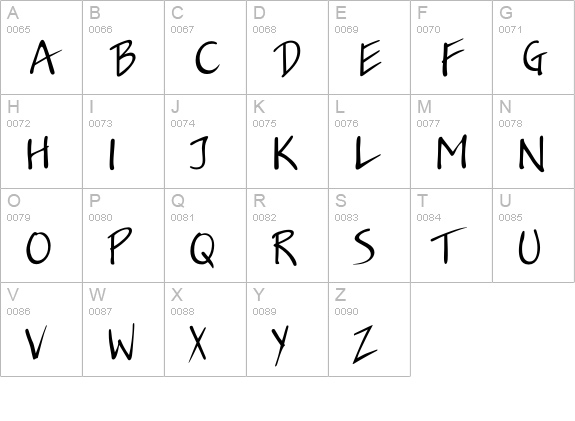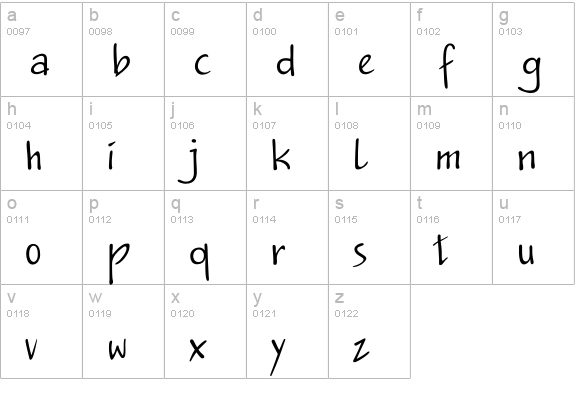
PT Jakob Light Cyrillic Font Details
PT Jakob Light Cyrillic is a refined, elegant variant in the PT typeface family \xE2\x80\x94 well suited to elegant body text, refined sub-headings, and luxury branding.
PT Jakob Light Cyrillic font is a beautifully crafted typeface that combines elegance and modernity. Its sleek and sophisticated design makes it perfect for various projects, such as branding, advertising, and editorial design. The font features a clean and minimalist aesthetic, with a touch of uniqueness that sets it apart from other Cyrillic fonts. The PT Jakob Light Cyrillic font is not only visually appealing, but also highly legible, ensuring that your message is conveyed effectively to your audience. Its meticulously designed characters and smooth curves create a harmonious flow of text, making reading a pleasant experience. One of the best things about PT Jakob Light Cyrillic font is that it is free. Yes, you read that right! This stunning font is freely available to download at FontsMarket.com. Whether you're a professional designer or a hobbyist, you can enhance your creative projects with this exceptional font without spending a dime. With PT Jakob Light Cyrillic font, you have the freedom to unleash your creativity and bring your ideas to life. Its versatility allows it to be used in a wide range of applications, from logos and headlines to body text and more. It effortlessly adapts to different design styles and can easily complement various visual elements. In addition to its aesthetic appeal and free availability, PT Jakob Light Cyrillic font also offers excellent language support, making it suitable for multilingual projects. It covers a vast range of characters, including Cyrillic, Latin, and other diacritical marks, ensuring that you can effectively communicate in different languages. So, why wait? Download PT Jakob Light Cyrillic font for free at FontsMarket.com and elevate your designs to new heights. Whether you're working on a personal project or a client's assignment, this font will undoubtedly make a lasting impression with its timeless elegance and exceptional quality.